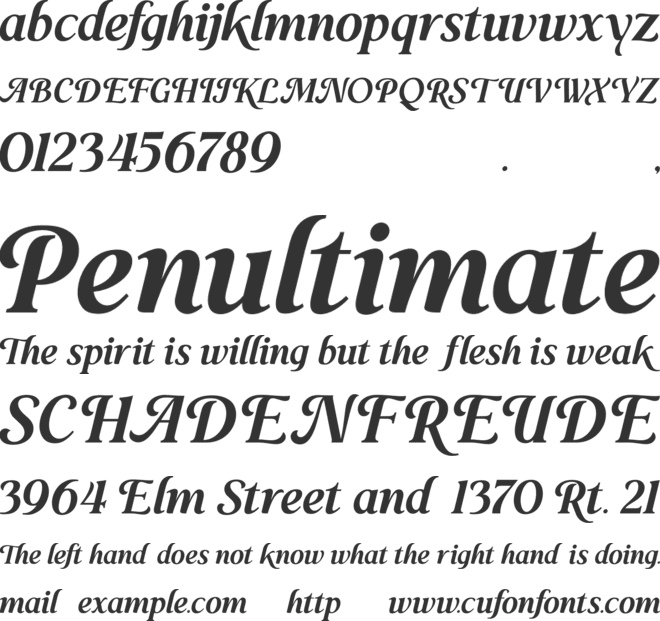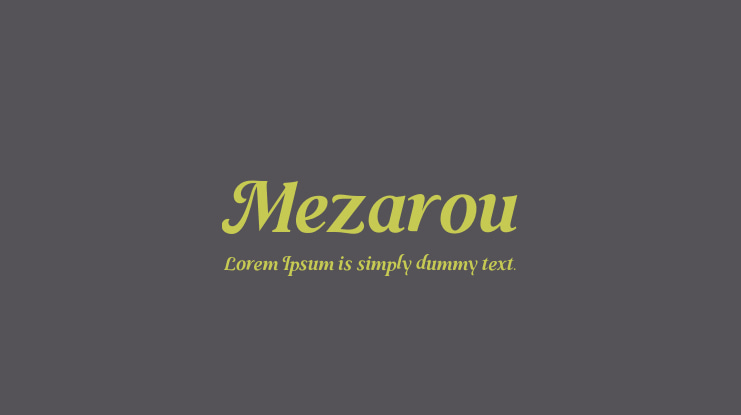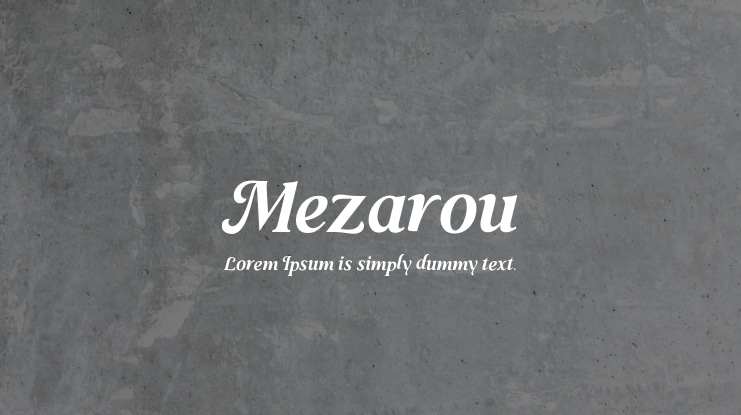
**Introducing Mezarou - An Elegant Vintage Typeface!**
Meet Mezarou, an elegant and vintage typeface that's perfect for adding a touch of retro style to your projects. With over 100 alternates and ligatures, Mezarou offers endless possibilities for creating unique designs. It is available in three different weights, enhancing its versatility. Quick access to alternate characters allows you to effortlessly create stunning layouts with this timeless font. Mezarou is applicable across various design areas and is highly suitable for use in packaging, apps, magazines, headlines, websites, ads, and all types of design projects.
**Super Easy to Use Alternates** You can access alternates with quick key combinations like A.2, A.3, a.2, m.6, etc. For results akin to the preview, select the font in your design software, then simply type "M.2ez.2ar.2ou.5".